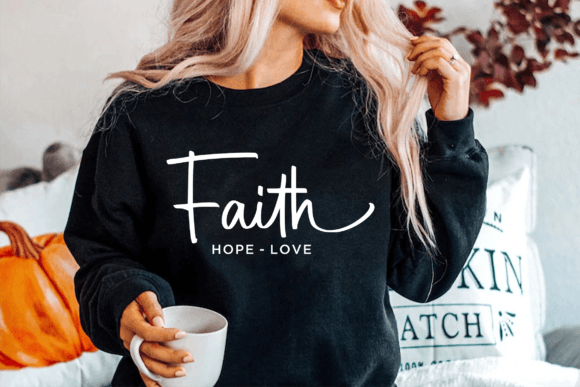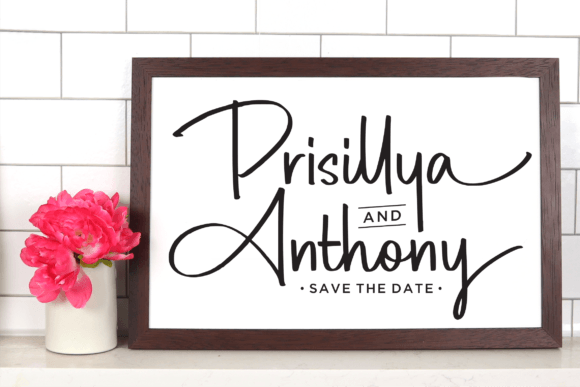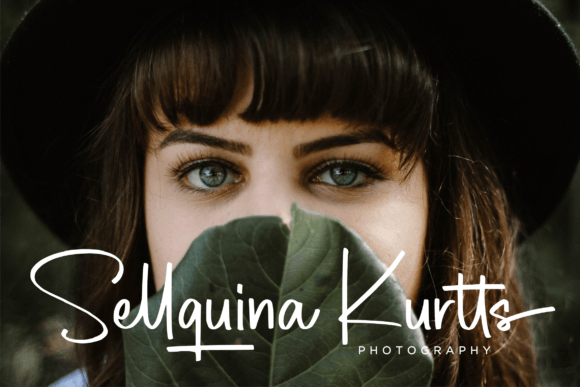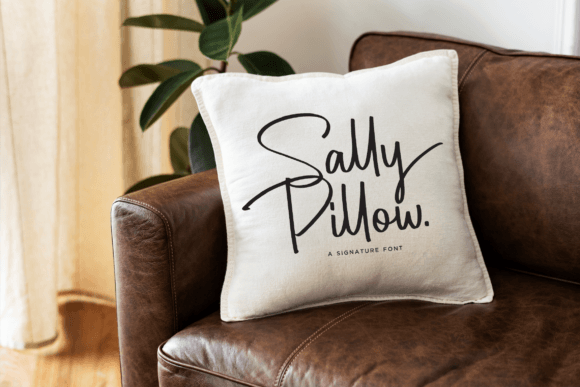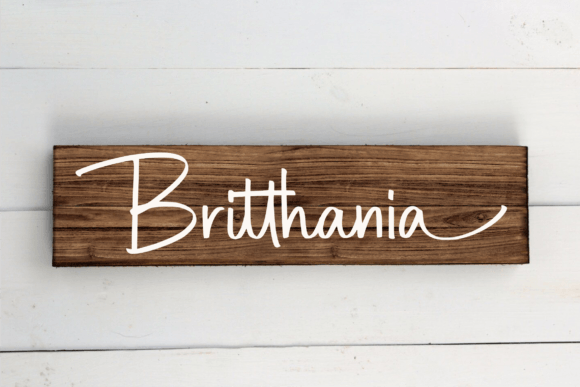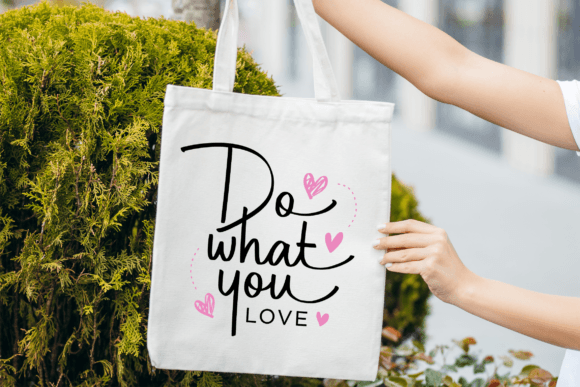
Discover the Elegance of Adelaique Font: Elevate Your Designs with Style
In the world of typography, fonts play a crucial role in conveying messages, evoking emotions, and adding personality to designs. Among the numerous fonts available, Adelaique stands out for its unique, stylish handwritten feel that is sure to captivate audiences. This signature font, characterized by its abundance of curves, swashes, lines, and more, offers an extraordinary balance in every word, making it a perfect choice for various design projects.
What Makes Adelaique Font Special?
Adelaique font is distinguished by its elegant and fluid strokes that give it a luxurious, handcrafted appearance. The font features:
- Stylish Handwritten Feel: Adelaique boasts a natural, handwritten look that adds a personal touch to any design.
- Abundance of Curves and Swashes: The font is rich in curves and swashes, which contribute to its sophisticated and graceful appearance.
- Extraordinary Balance: Each word in the Adelaique font exhibits a remarkable balance, ensuring that the text is not only visually appealing but also highly readable.
Ideal Uses for Adelaique Font
Given its stylish and versatile nature, Adelaique font is suitable for a wide range of design applications, including:
- Greeting Cards: Add a touch of elegance and sophistication to your greeting cards, making them stand out for special occasions.
- Magazines and Editorials: Use Adelaique to create captivating headers, titles, and pull quotes that enhance the visual appeal of your publications.
- Headers and Logos: The font’s unique style makes it an excellent choice for crafting memorable headers and logos that reflect a brand’s personality.
- Social Media Graphics: Elevate your social media presence with Adelaique, using it for posts, stories, and bio descriptions to convey a sense of style and class.
To maximize the potential of Adelaique font in your designs, consider the following tips:
- Mix and Match: Experiment with different sizes, colors, and styles of Adelaique to create visual hierarchy and add depth to your designs.
- Pair with Simplicity: Balance the ornateness of Adelaique with simpler fonts or design elements to avoid overwhelming your audience.
- Play with Swashes: Take advantage of the font’s swashes to add flair to your text. You can use them to create connections between words or to frame your text.
- Consider the Context: Ensure that the use of Adelaique aligns with the message and tone of your project. Its elegant nature makes it suitable for formal and creative projects.
Adelaique font offers a unique blend of style, elegance, and versatility, making it an invaluable addition to any designer’s toolkit. Its ability to add a touch of sophistication and personality to various projects, from greeting cards and magazines to social media graphics, is undeniable. By incorporating Adelaique into your designs and experimenting with its features, you can create visually stunning and engaging content that resonates with your audience.
Whether you’re a seasoned designer or a crafter looking to elevate your projects, Adelaique font is sure to inspire and enhance your creative endeavors.